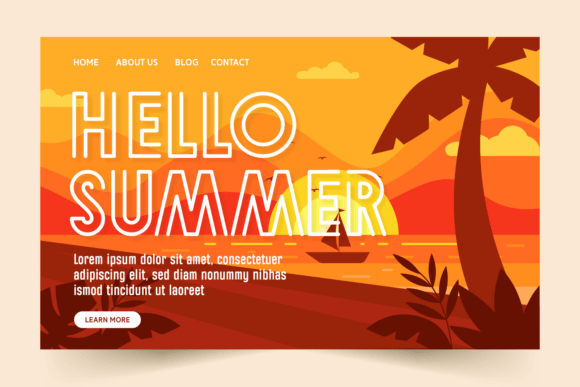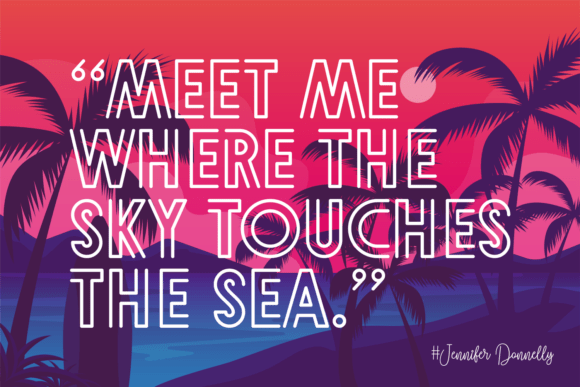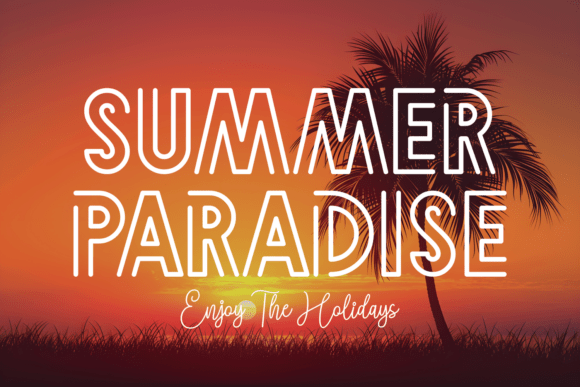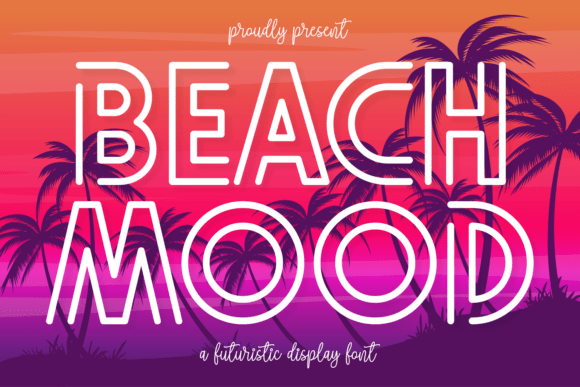
Introduction to Beach Mood Font
β€œBeach Mood” exudes an aura of coastal leisure and sun-kissed merriment.
A Display Font with radiant multi-lines, it mirrors the playful patterns etched in the sand by lovingly dragging feet, capturing childhood innocence in each unique curve As a Holiday Font, it’s infused with the lively rhythms of summer vacations and vibrant beachside festivals, making it a delightful addition to children’s projects, whether it be for school or craft sessions.
Key Features of Beach Mood Font
Why Choose Beach Mood Font?
Beach Mood Font offers exceptional quality and versatility, making it a valuable addition to your design toolkit. Whether you’re creating for personal projects or commercial use, Beach Mood Font delivers professional results.